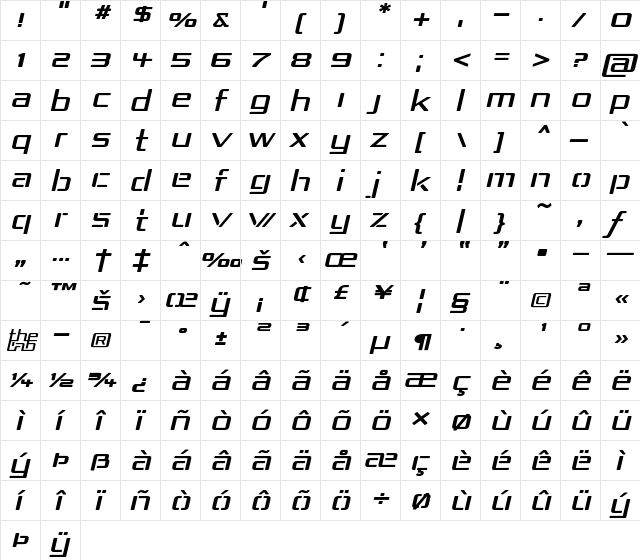
Republika IV Exp Italic
Design Context for Republika IV Exp Typeface
Republika IV Exp takes a measured approach to typography — its balanced proportions and neutral character make it a reliable workhorse for both digital and print work. The slanted form adds forward momentum and visual energy.
Pro Tip: Try Republika IV Exp for annotation and caption copy alongside an upright companion — the contrast in angle creates a dynamic but ordered typographic system.